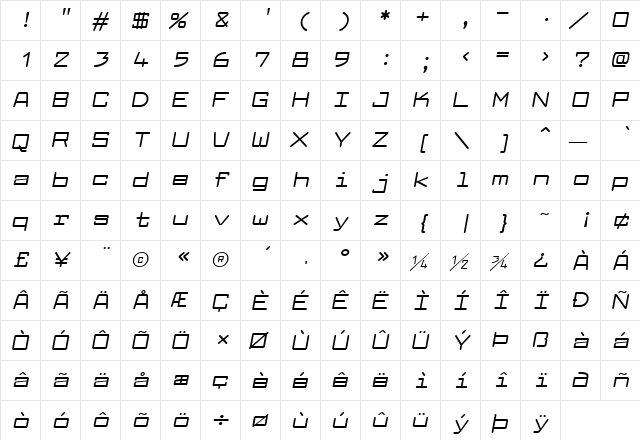
Larabiefont Extended Bold Italic
Design Context for Larabiefont Extended Typeface
Larabiefont Extended takes a measured approach to typography — its balanced proportions and neutral character make it a reliable workhorse for both digital and print work. The slanted form adds forward momentum and visual energy. Its bold stroke weight gives it real presence on the page.
Pro Tip: Use Larabiefont Extended for emphasis, pull quotes, and subheadings where its slanted energy can add rhythm to the layout.